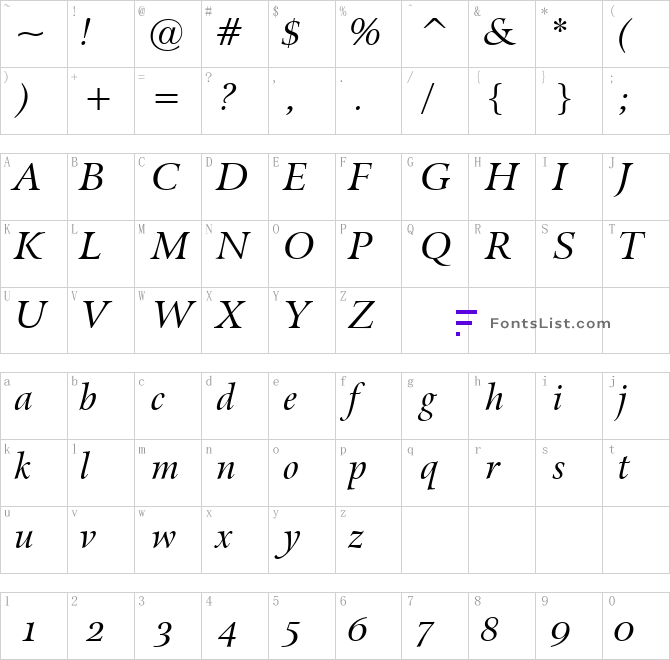
- Font Name:Arrus OSF BT
Arrus-OSF-BT-Italic.ttf is a very beautiful artistic font, Arrus-OSF-BT-Italic.ttf is widely used in the design and printing of various books and pictures,Arrus-OSF-BT-Italic.ttf has a strong visual impact,Arrus-OSF-BT-Italic.ttf is a commonly used font in newspapers, magazines and books, and is used in posters, e-commerce Poster design, store design, logo design, font design and other fields.Arrus-OSF-BT-Italic.